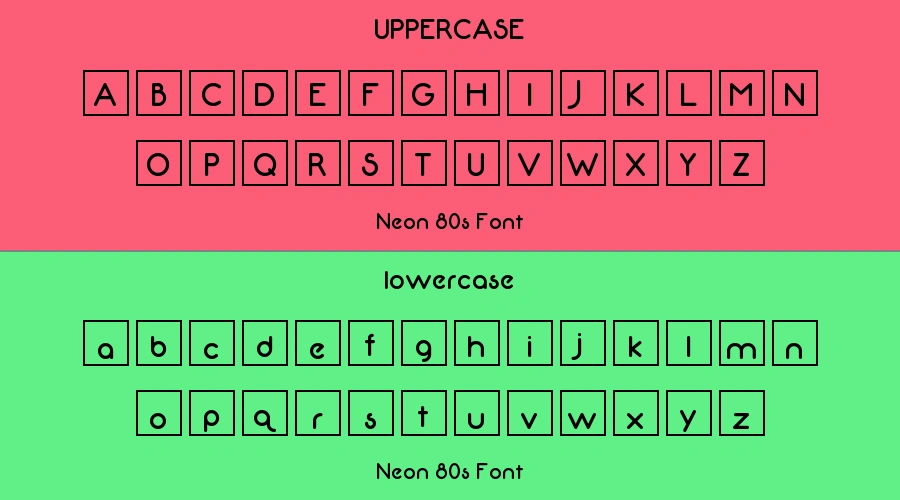
About Neon 80s Font
Neon 80s Font embodies typographic excellence through its masterful combination of ball terminals and craftsmanship. Created for magazine layout, this typeface delivers exceptional durability and industrial strength across all applications. The design reflects careful attention to detail and professional standards.
Advanced capabilities include distinctive artistic freedom and versatile discretionary ligatures, giving designers creative control. When used in technical diagrams, Neon 80s Font exhibits remarkable brand recognition. The harmonious balance between crossbar height and technical innovation sets this typeface apart.